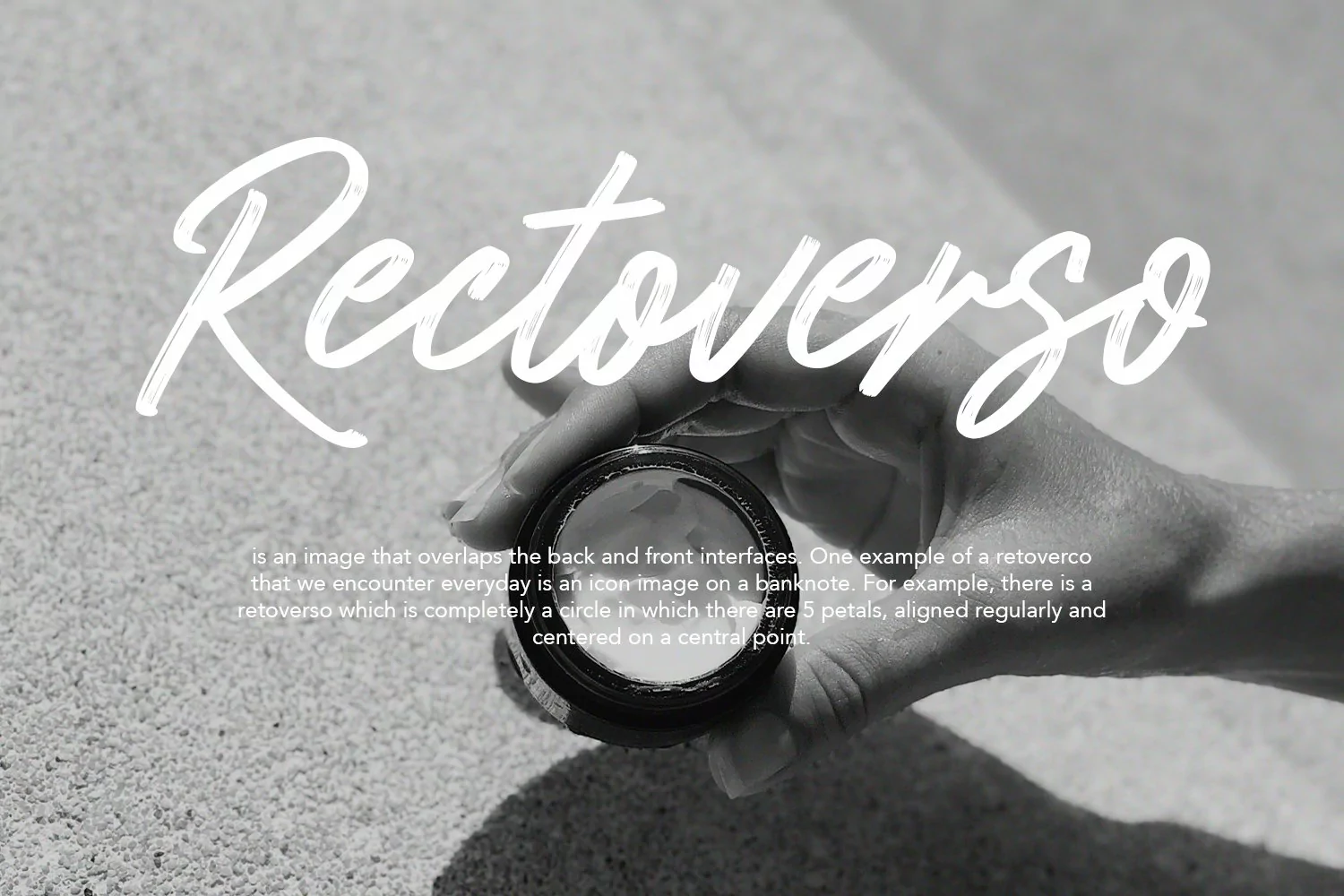
Give your designs an authentic handcrafted feel. “Nomadlines Brush Stroke Script Font” is perfectly suited to signature, stationery, logo, typography quotes, magazine or book cover, website header, clothing, branding, packaging design and more.